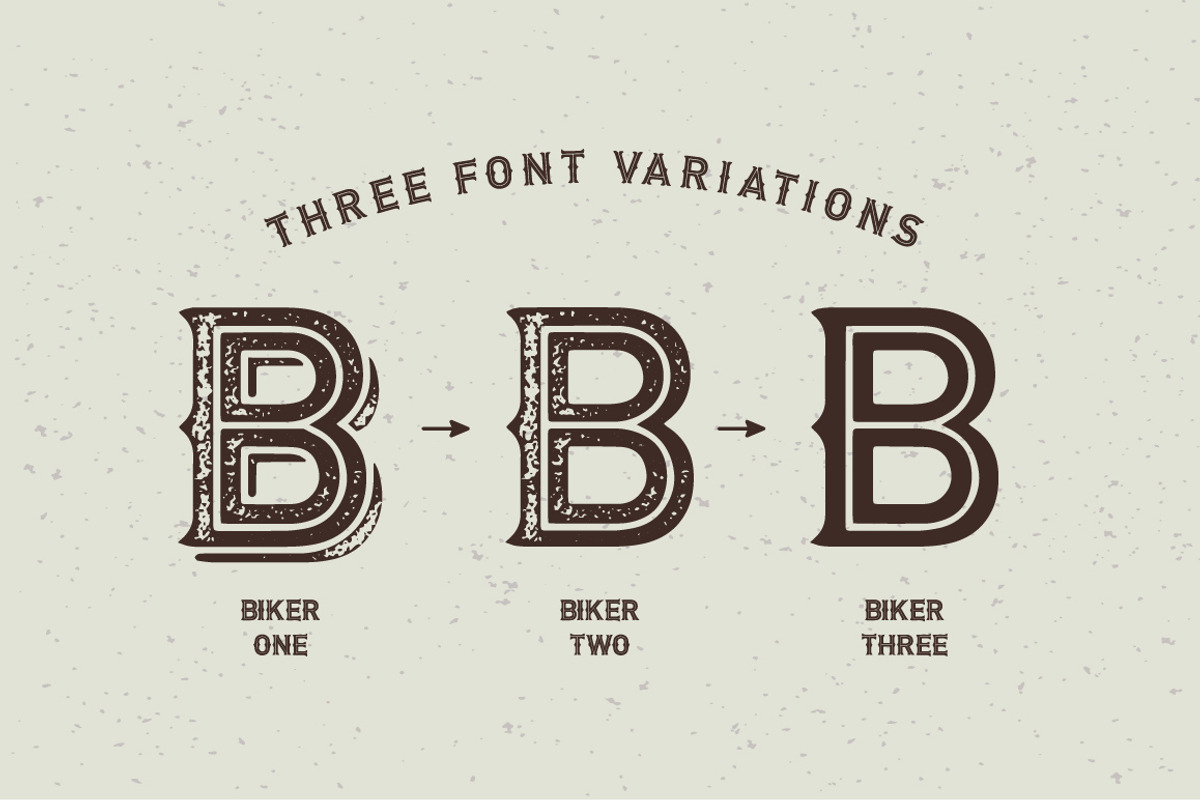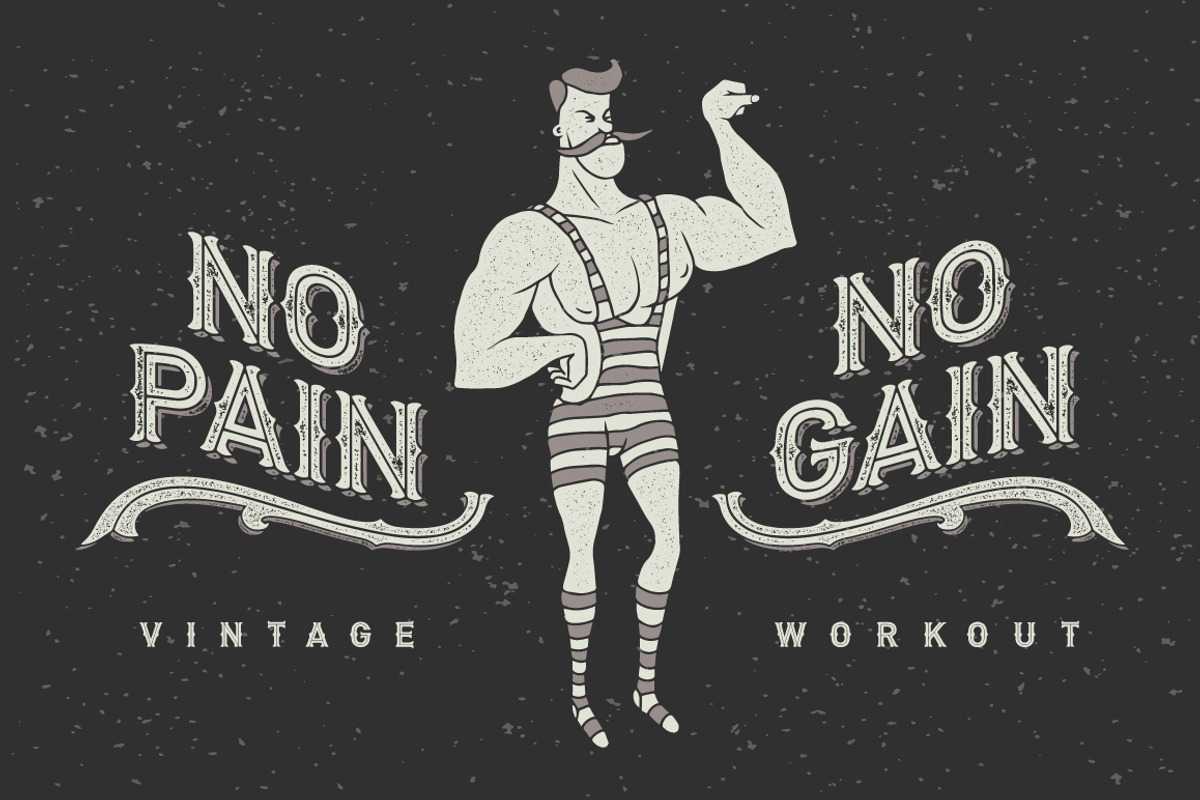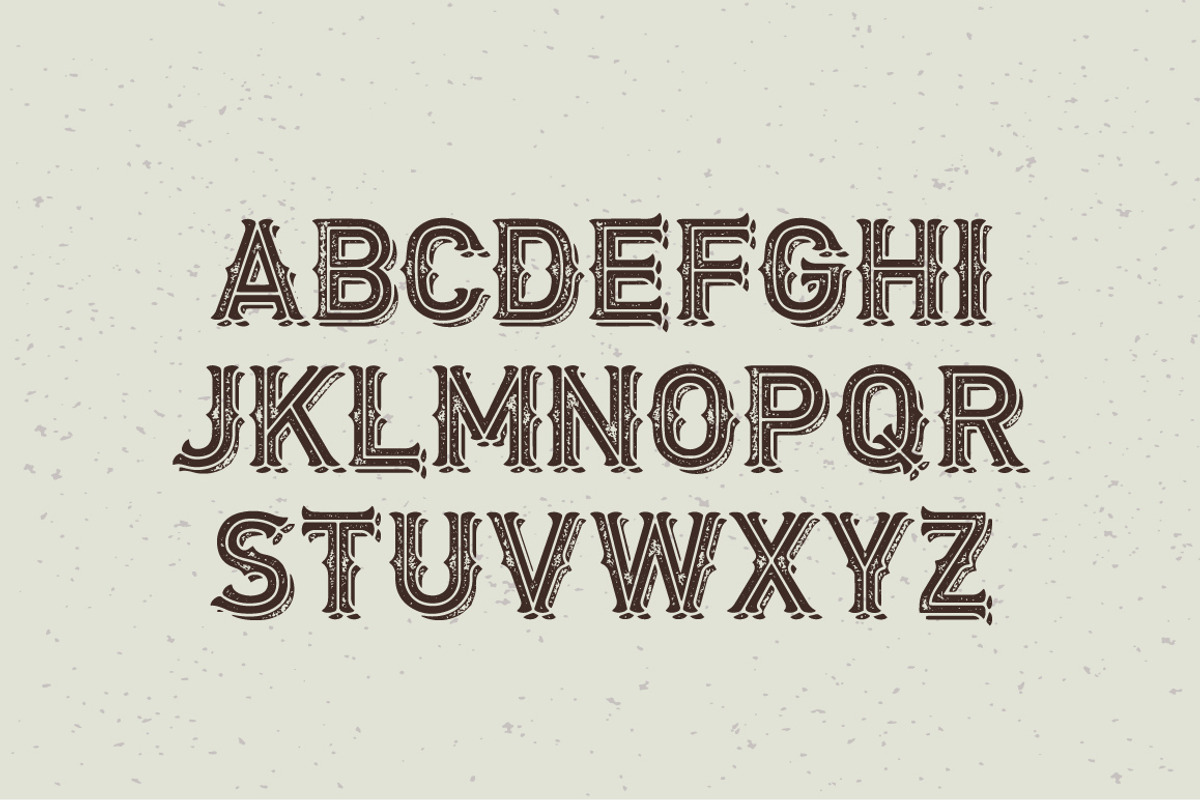
Biker font set + graphics
Biker font set + graphics by Gleb Guralnyk is a font selected for branding, posters, packaging, typography.
Note: Fonts contains ONLY big latin letters (no small letters, digits or other glyphs).
- Biker One Regular
- Biker Three Regular
- Biker Two Regular
Why Biker font set + graphics is worth a look
Biker font set + graphics by Gleb Guralnyk fits naturally into Branding, posters, packaging, typography.